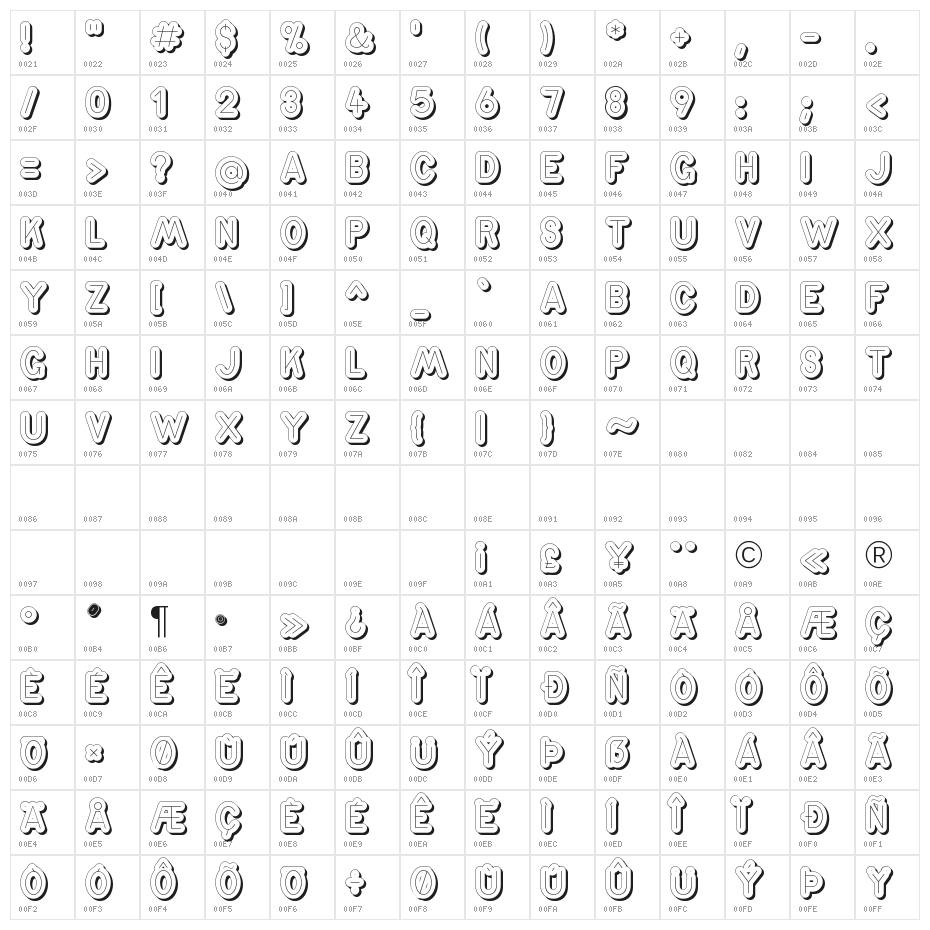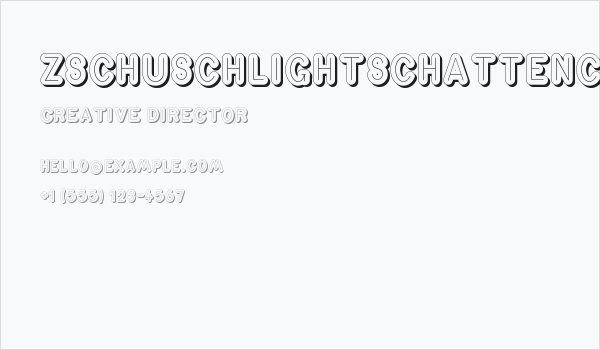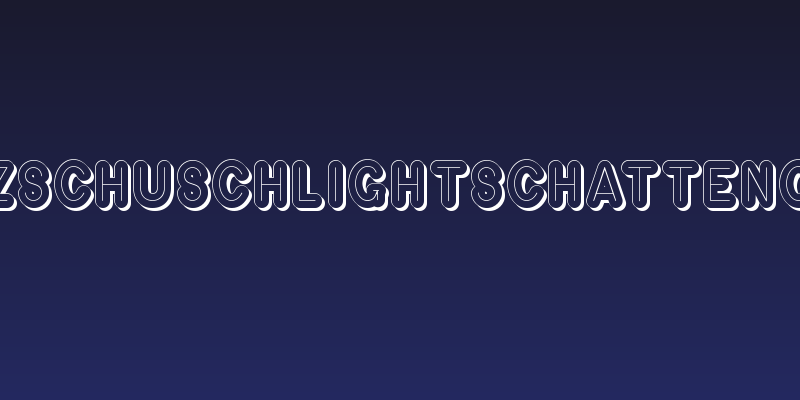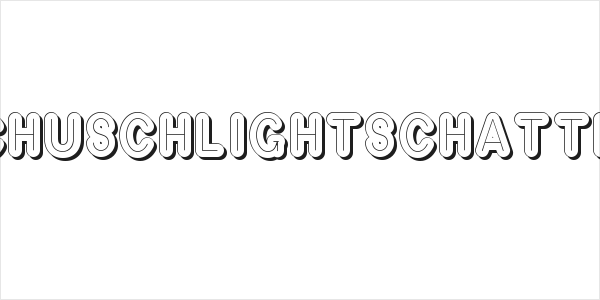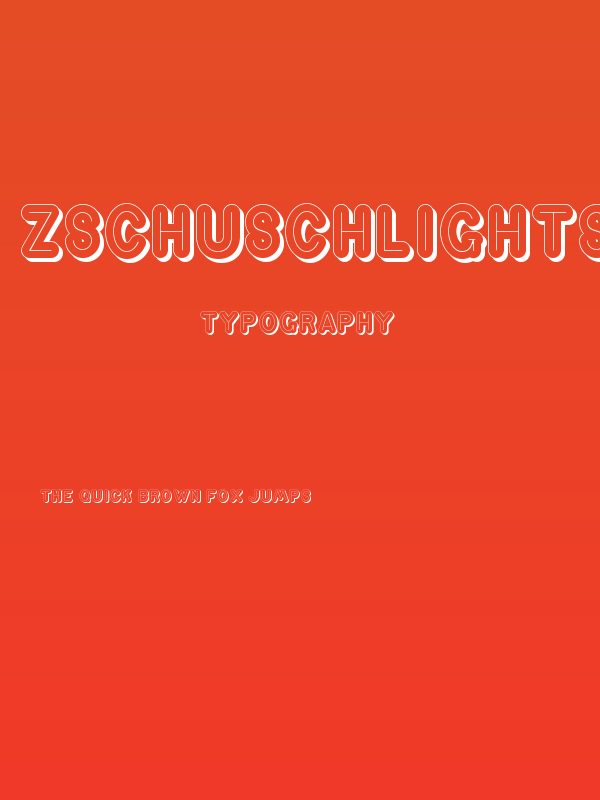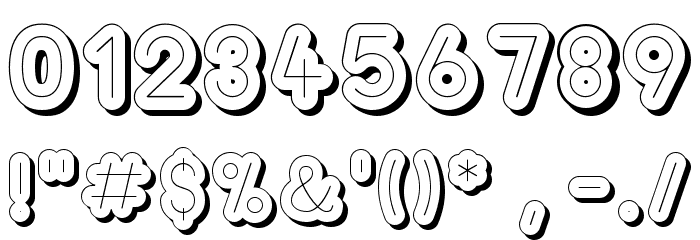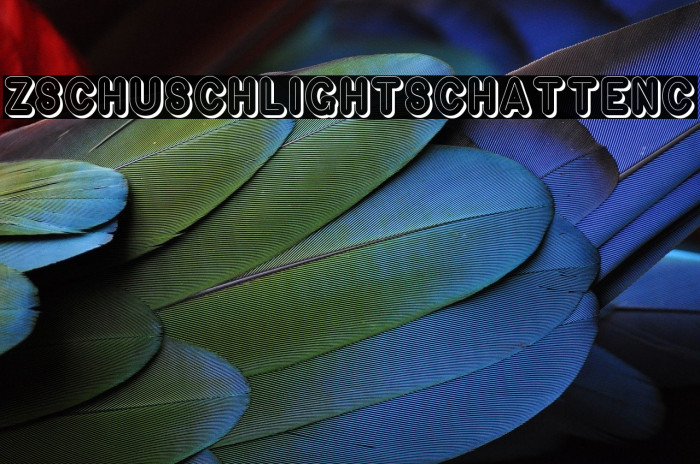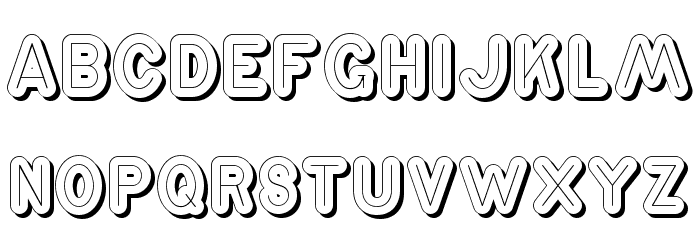
ZschuschLightSchattenC Font
ZschuschLightSchattenC Description
This font features a bold, playful design with a three-dimensional shadow effect that gives it a unique, eye-catching appearance. The letters are rounded and thick, creating a sense of fun and whimsy. The shadow effect adds depth and makes the characters stand out, making it ideal for designs that require a strong visual impact. The font includes a full set of uppercase and lowercase letters, numbers, and a variety of special characters, ensuring versatility in its use. Its boldness and distinct style make it suitable for projects that aim to capture attention and convey a lively, energetic vibe.
| Overall Style | Playful, Energetic |
| Proposed Projects | Ideal for posters, children's books, playful branding, and any design needing a fun, bold statement. |